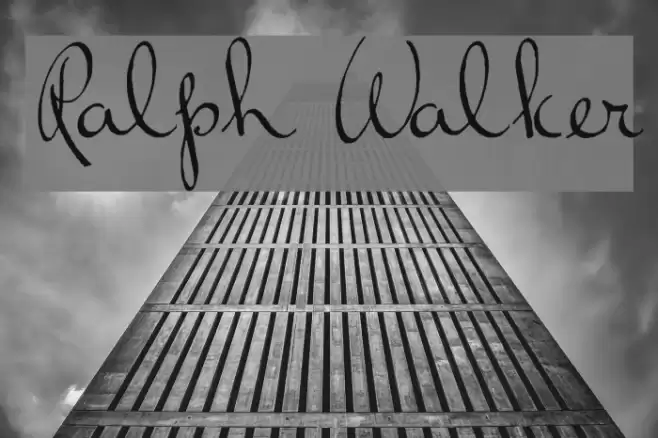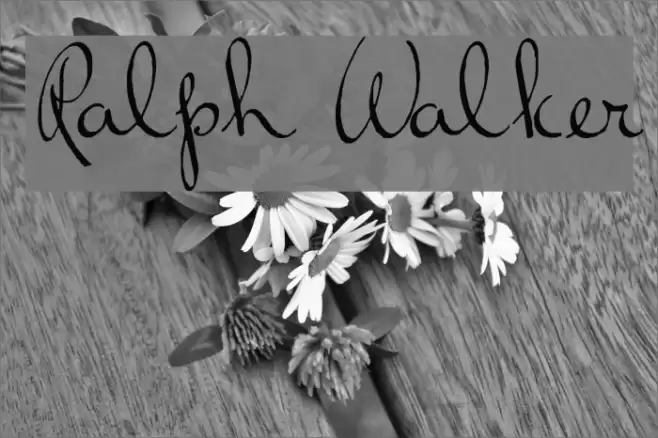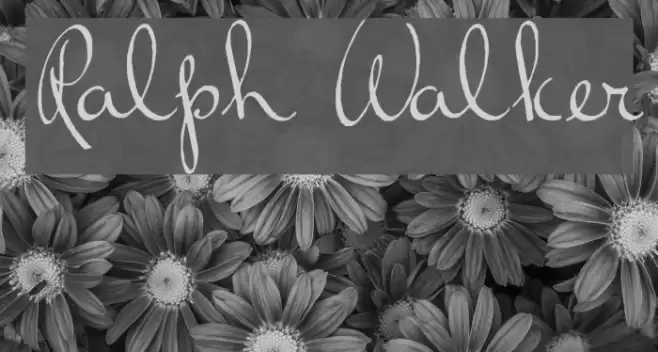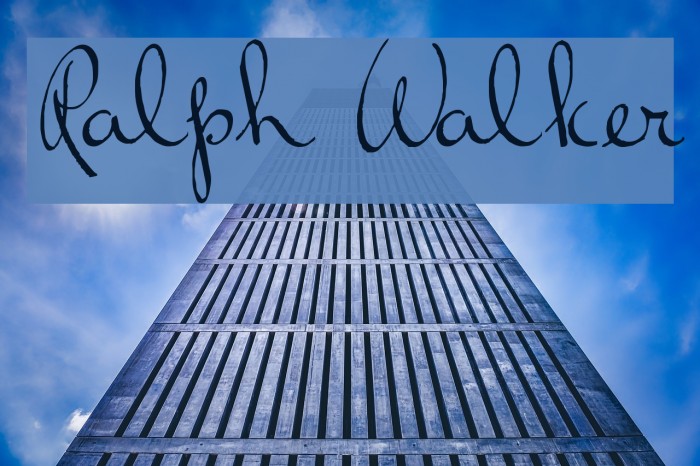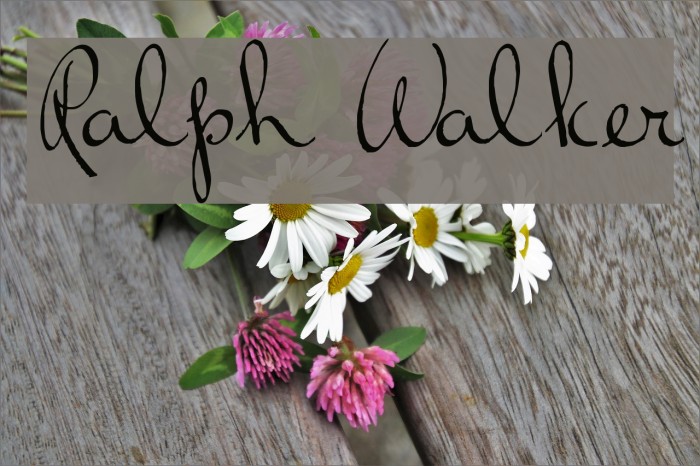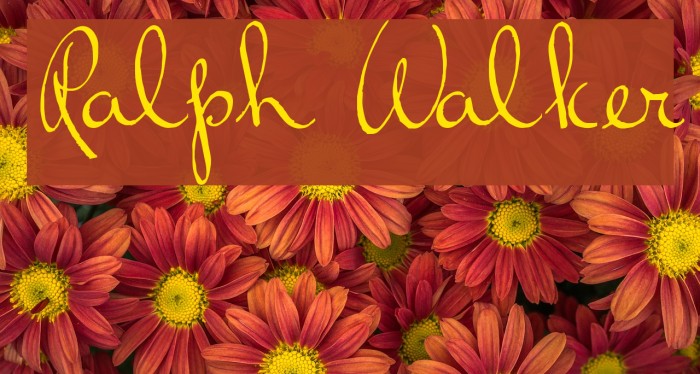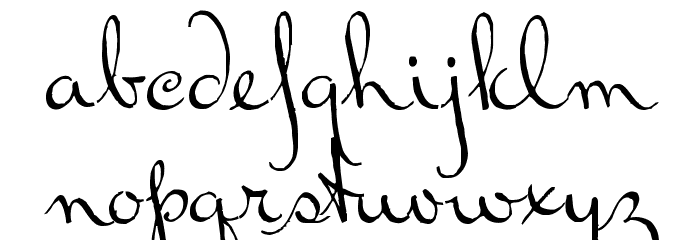
Ralph Walker Font
Ralph Walker Description
This font exhibits a flowing, cursive style with elegant, sweeping strokes that give it a handwritten appearance. The uppercase letters are characterized by their tall, slender forms and intricate loops, while the lowercase letters maintain a consistent fluidity, enhancing the overall graceful aesthetic. The strokes vary in thickness, adding a dynamic contrast that emphasizes the artistic flair of the design. The special characters are seamlessly integrated, maintaining the same stylistic elements as the alphabet. This font is ideal for projects that require a personal touch or a sophisticated, artistic vibe.
A flowing, cursive font with elegant, sweeping strokes and dynamic contrast from Uncategorized fonts.
- Proposed Projects: Ideal for wedding invitations, greeting cards, personal branding, and artistic projects.
- Use Case: Logos, Invitations, Artistic projects